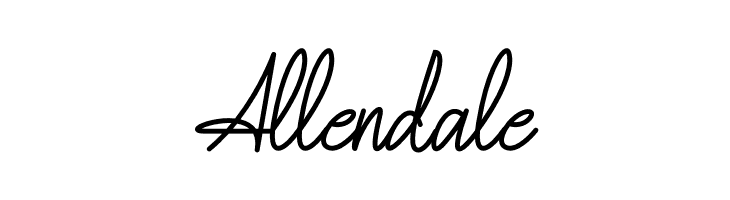
An elegant, flowing script font with smooth, cursive letterforms.
A playful and elegant handwritten script font with fluid, interconnected strokes.
A playful, handwritten font with tall, narrow letters and a whimsical style.
A bold, elegant script font with flowing curves and stylish flourishes.